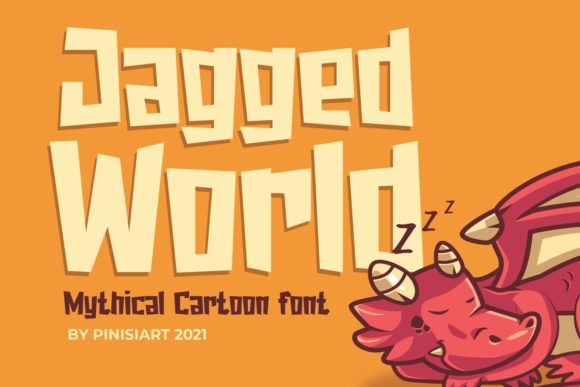
In a world where creativity reigns supreme, there exists a font that transcends the boundaries of ordinary typography, a font that captures the essence of mythical enchantment and transports you to realms of wonder—Jagged World. This captivating display font, meticulously crafted by the visionary artists at pinisi.art.koo, is not just a collection of letters; it's a portal to a universe where imagination thrives.
Jagged World is the ultimate font for conjuring magical realms, whether it's for the covers of spellbinding books, the captivating interfaces of online games, or the vibrant designs of stationery and school supplies. Its distinctively jagged edges evoke a sense of ancient runes, whispering secrets of forgotten civilizations and enchanting creatures. Each character, meticulously designed with intricate details, resembles an artifact from a mystical world, waiting to be deciphered and appreciated.
Immerse yourself in the allure of Jagged World and let your creativity soar. Picture the awe-inspiring title of your fantasy novel, emblazoned in this font, captivating readers from the very first glance. Envision your online game's interface, adorned with Jagged World, drawing players into an immersive world of adventure and intrigue. Imagine your stationery and school supplies adorned with this font, transforming mundane tasks into enchanting quests and magical learning experiences.
Jagged World is more than just a font; it's a key that unlocks the door to boundless creativity, a gateway to a realm where anything is possible. Its versatility extends beyond the written word, seamlessly adapting to poster designs, movie titles, and social media covers. Let Jagged World elevate your designs to mythical proportions, captivating audiences with its undeniable charm.
Step into the realm of Jagged World, where imagination meets reality, and experience the transformative power of this enchanting font. Let your creativity flourish, and let Jagged World be your guide on an extraordinary journey through worlds of wonder, enchantment, and limitless possibilities. Embrace the magic, embrace Jagged World.